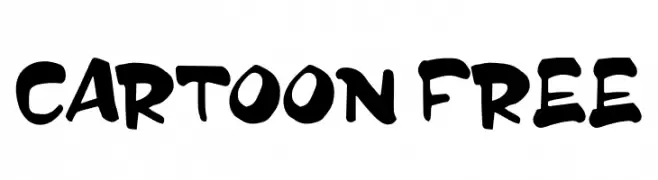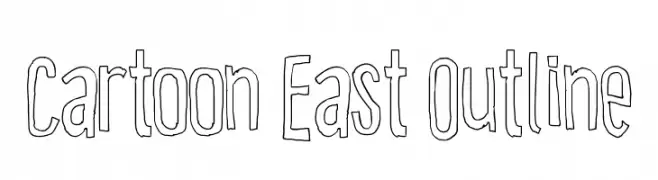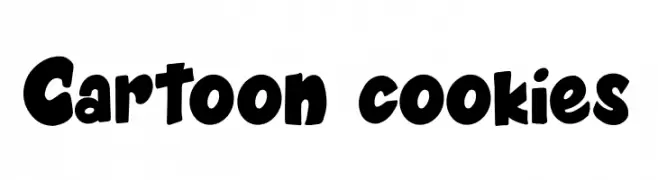
A bold, 3D cartoon-style font with thick outlines and playful character design.
A playful, 3D block-style font with bold outlines and a cartoonish flair.
A playful, rounded font with a cartoon-like style.
A playful, rounded font with a smooth, modern design.
A playful, bold font with rounded, thick strokes and a cartoonish style.
A playful, bold font with rounded, cartoonish characters.
A playful, hand-drawn style font with irregular, dynamic characters.
A playful, hand-drawn outline font with a whimsical and cartoonish style.
A playful, bold, hand-drawn font with a cartoonish, energetic style.